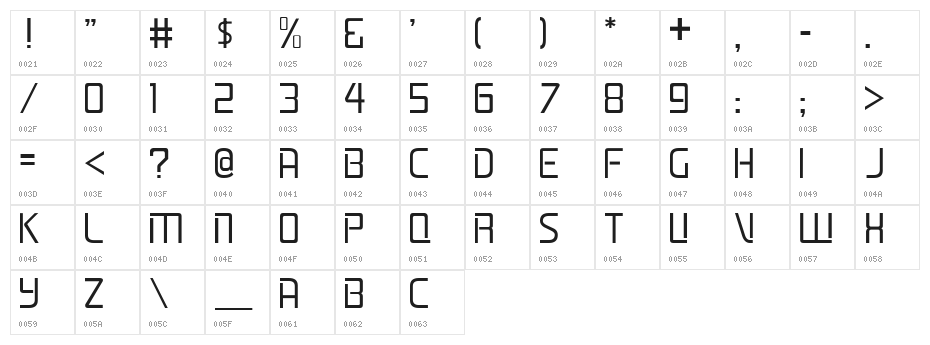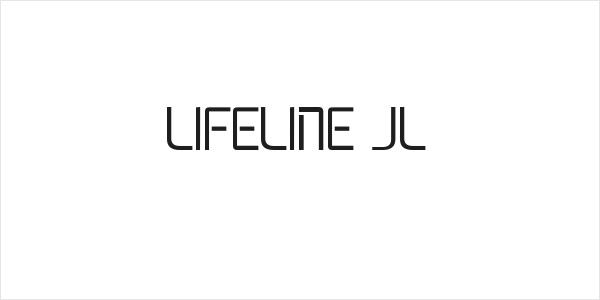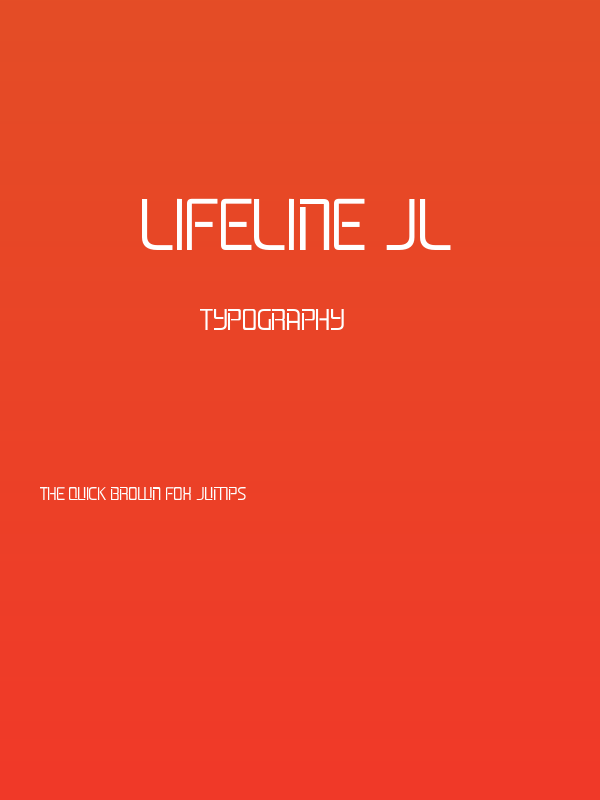
Lifeline JL Font
Lifeline JL Description
This font features a modern, geometric design with clean lines and a structured appearance. The characters are constructed with a consistent stroke width, giving it a uniform and cohesive look. The angular edges and straight lines contribute to its futuristic and technical feel, making it suitable for digital and tech-related projects. The uppercase and lowercase letters maintain a similar height, enhancing readability and balance. The numerals and special characters are designed to match the overall style, ensuring a seamless integration across different text elements.
| Use Case | Headlines, Logos, Digital interfaces |
| Proposed Projects | Ideal for tech branding, digital interfaces, futuristic designs, and modern advertising. |